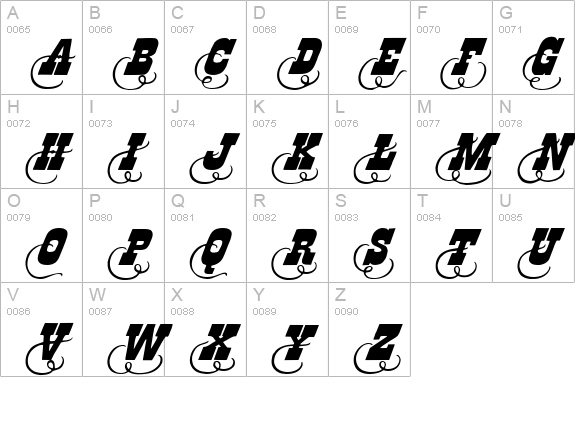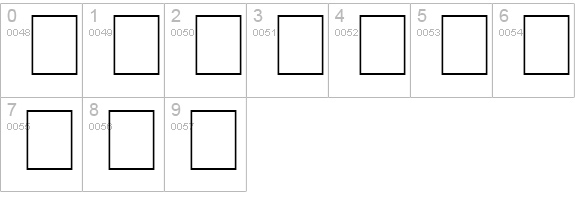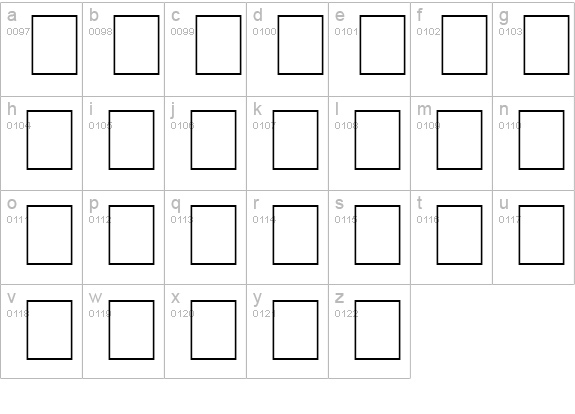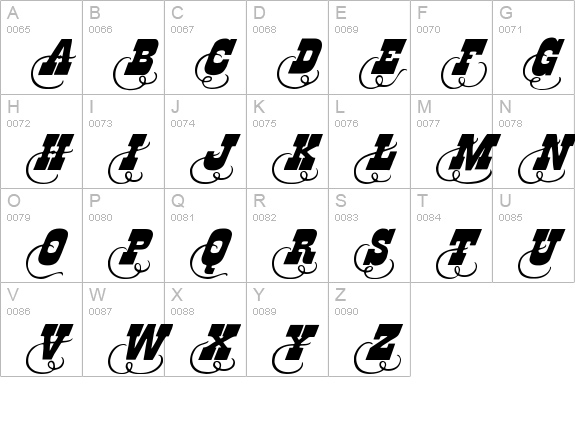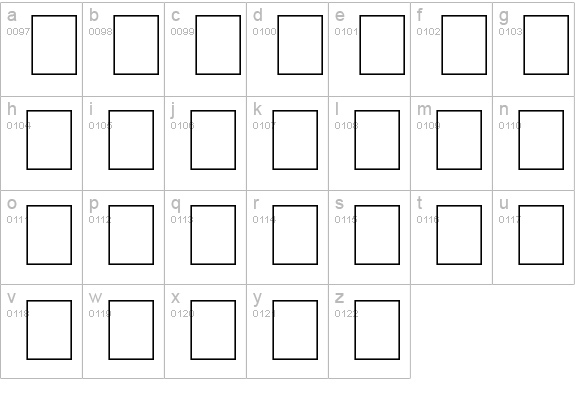
Dodge City Initials font is a striking and bold typeface that exudes a sense of vintage charm and nostalgia. With its intricate details and unique design, this font is perfect for adding a touch of old-world elegance to your projects. The ornate initials capture the spirit of the Wild West, making them ideal for Western-themed designs or any project that requires a touch of rustic flair. Best of all, Dodge City Initials font is completely free to download at FontsMarket.com. Whether you're working on a poster, logo, or any other creative endeavor, this font is sure to make a bold statement and leave a lasting impression. Don't miss out on the opportunity to enhance your designs with this stunning and versatile typeface - download Dodge City Initials font today and let your creativity shine.